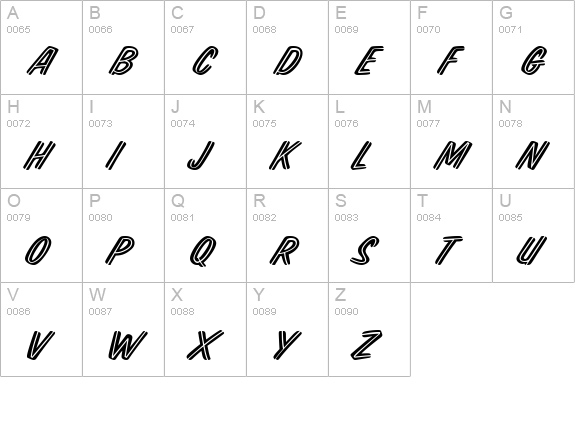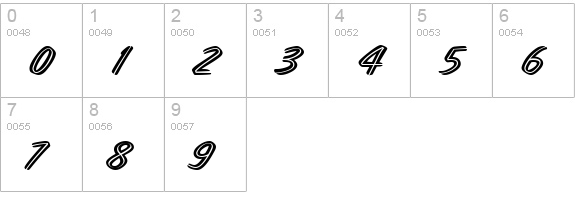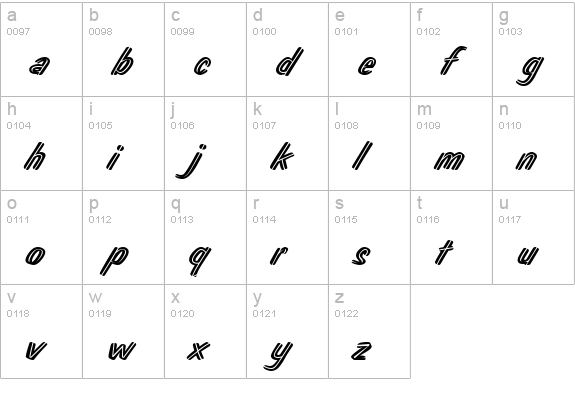
Jest Inline Font Details
Introducing Jest Inline font, a sleek and modern typeface designed to make your designs stand out. With its clean lines and contemporary style, Jest Inline is perfect for adding a touch of sophistication to any project. This versatile font is suitable for a wide range of design applications, from branding to web design to print materials. What's more, Jest Inline font is completely free to download at FontsMarket.com. This means you can easily access this stylish typeface without any cost, making it a valuable addition to your font collection. Whether you're a professional designer or a hobbyist looking to elevate your projects, Jest Inline font is sure to impress with its unique aesthetic and smooth letterforms. Don't miss out on the opportunity to enhance your designs with Jest Inline font - download it for free today at FontsMarket.com and elevate your creative work to the next level.